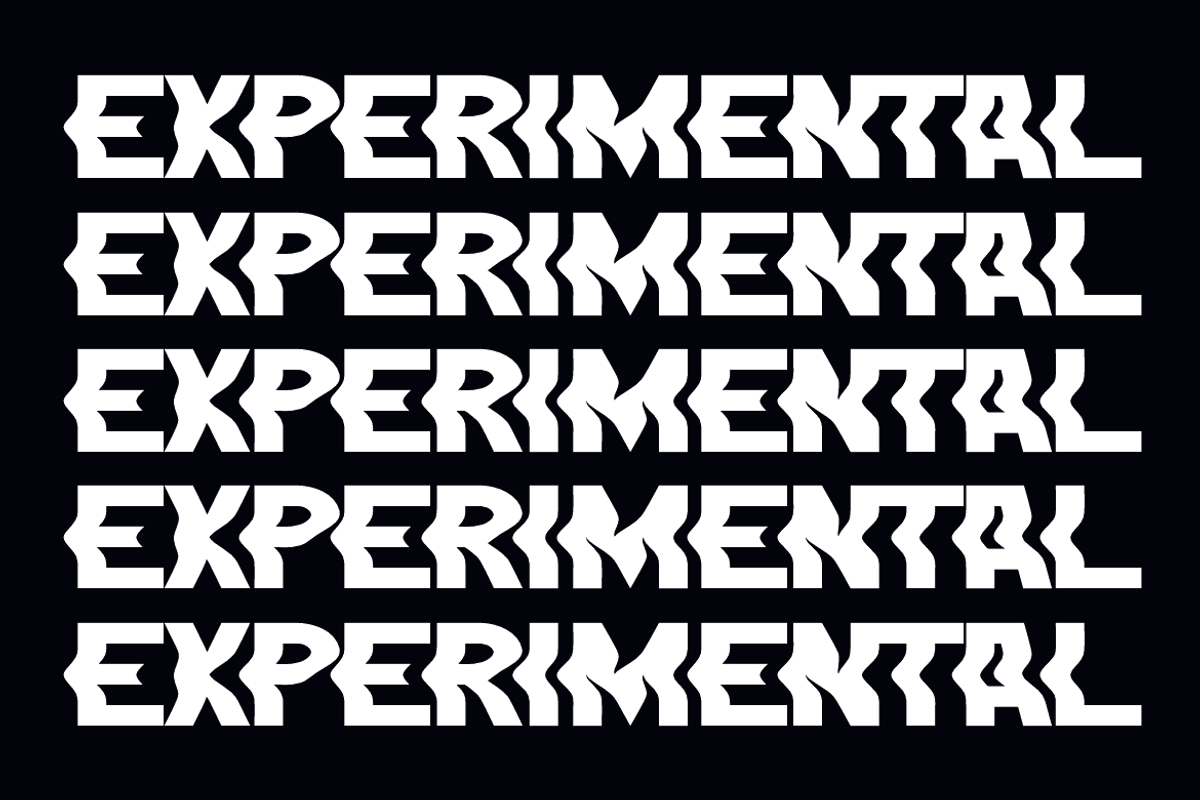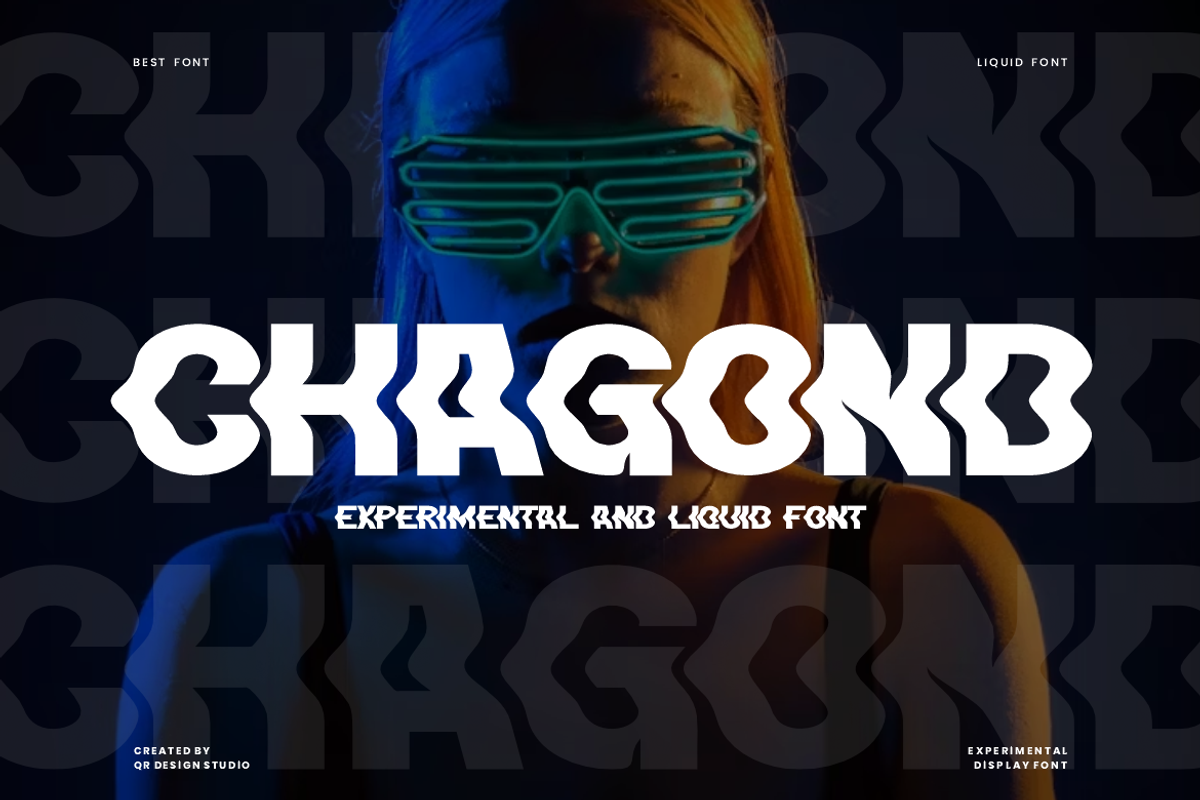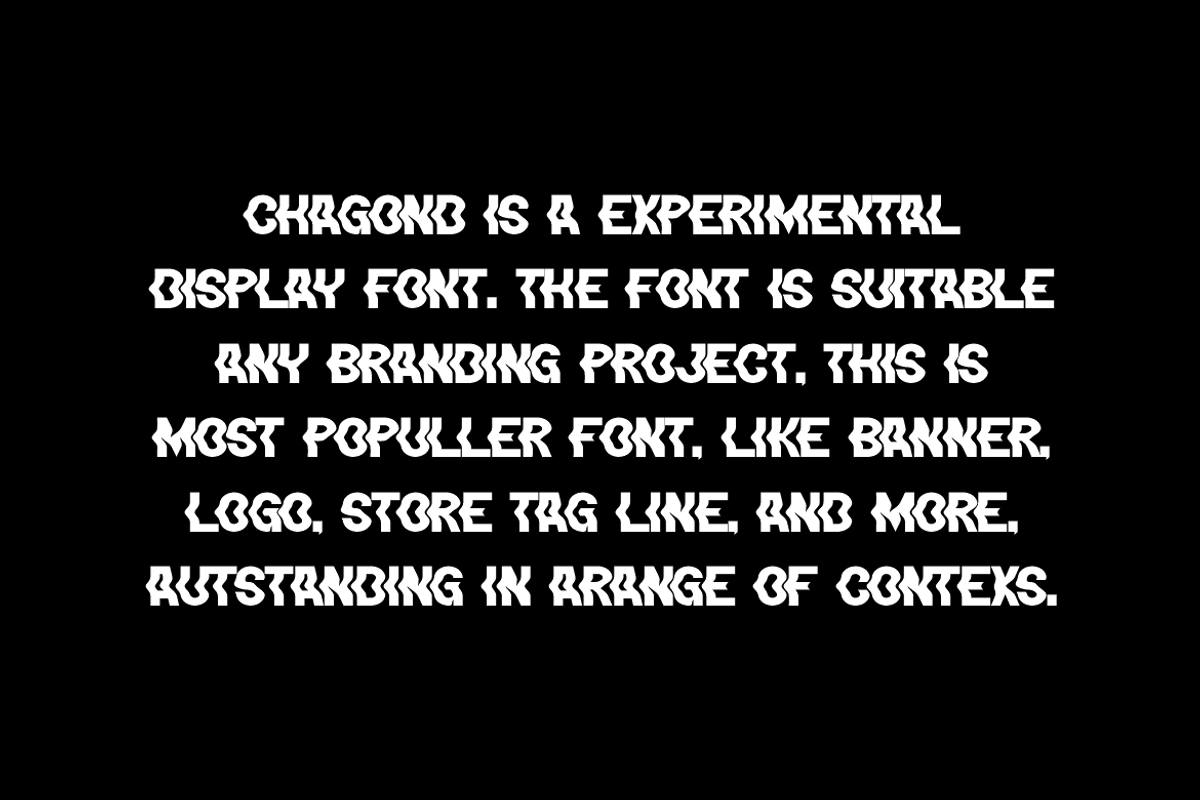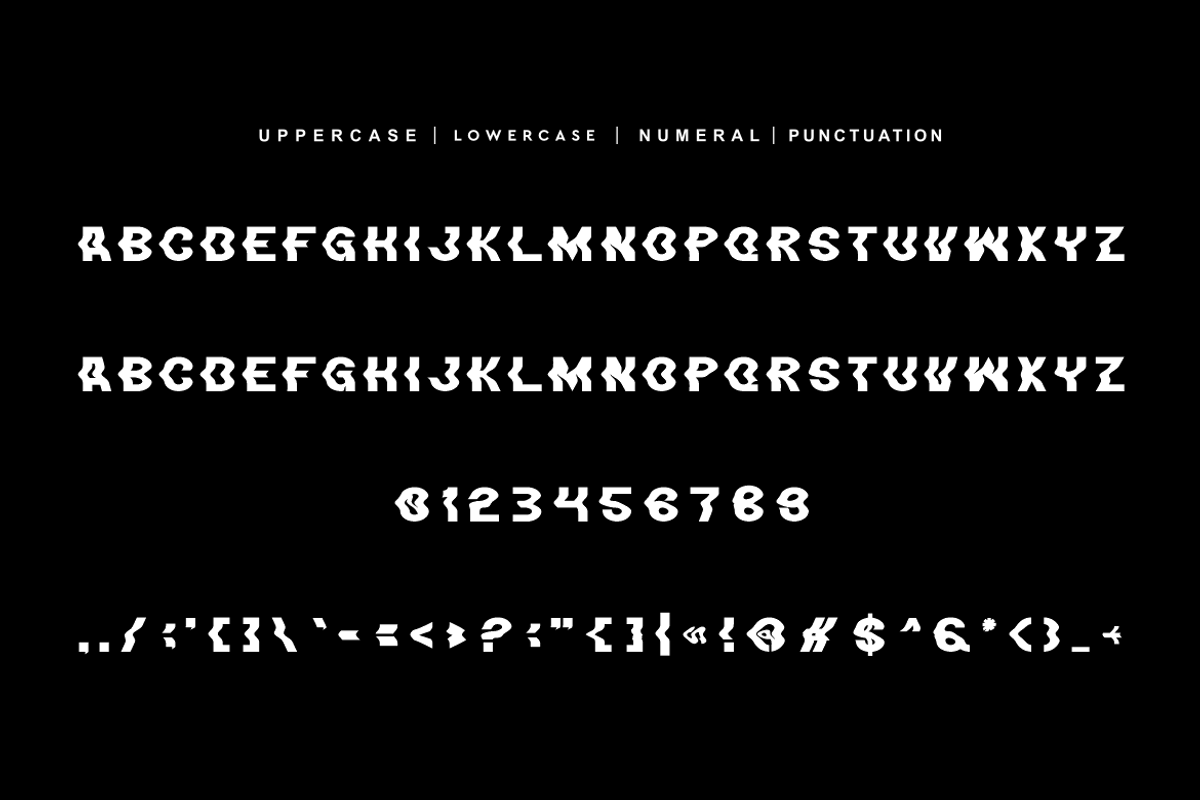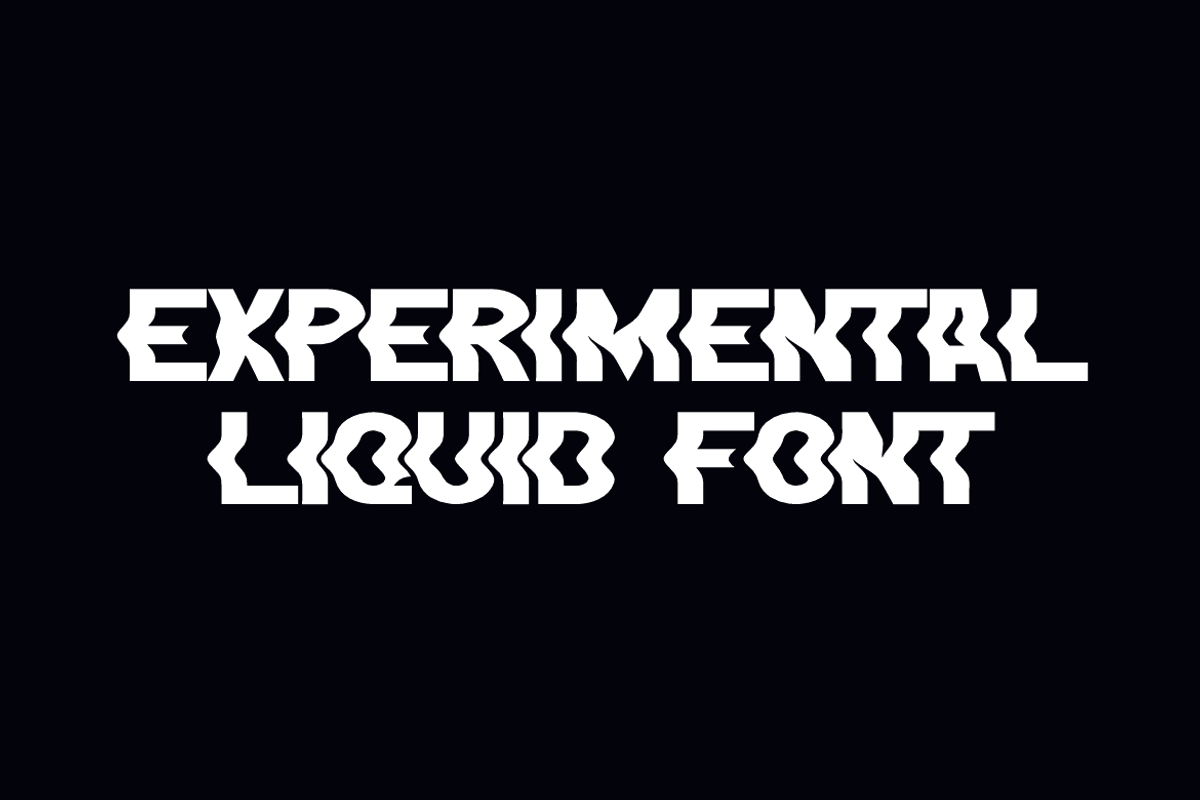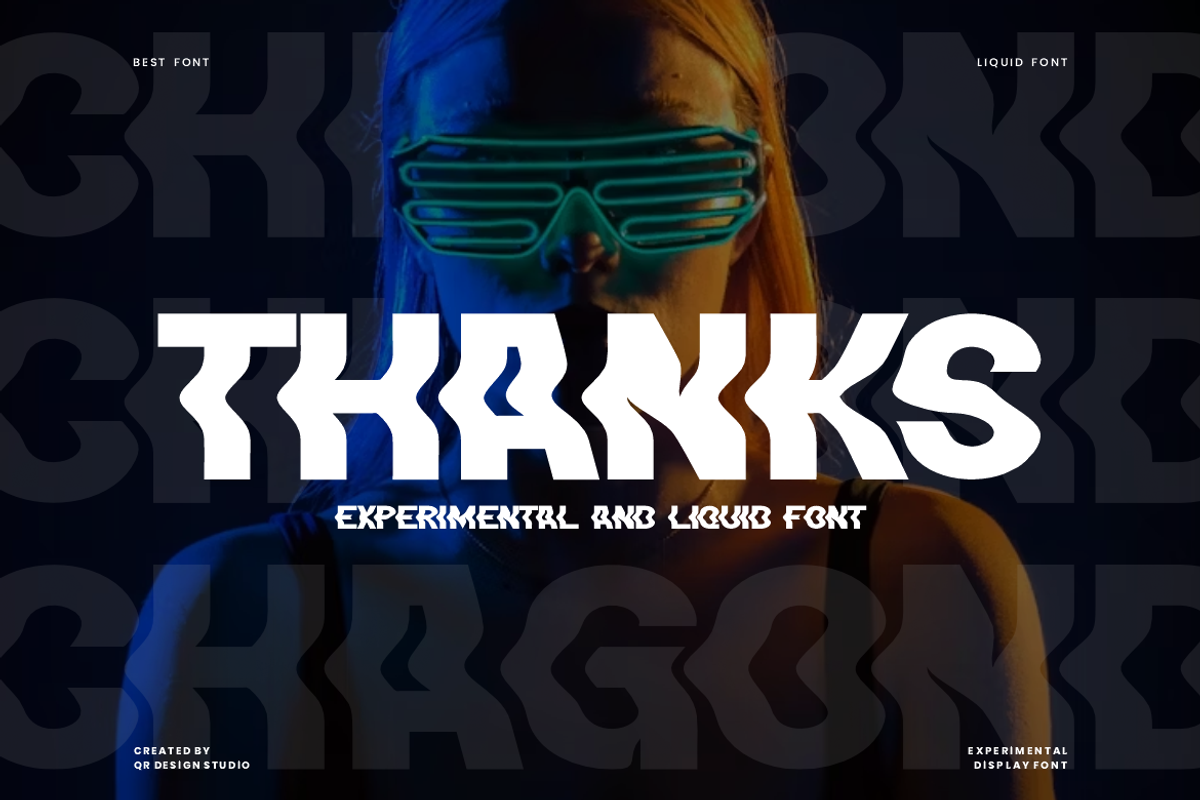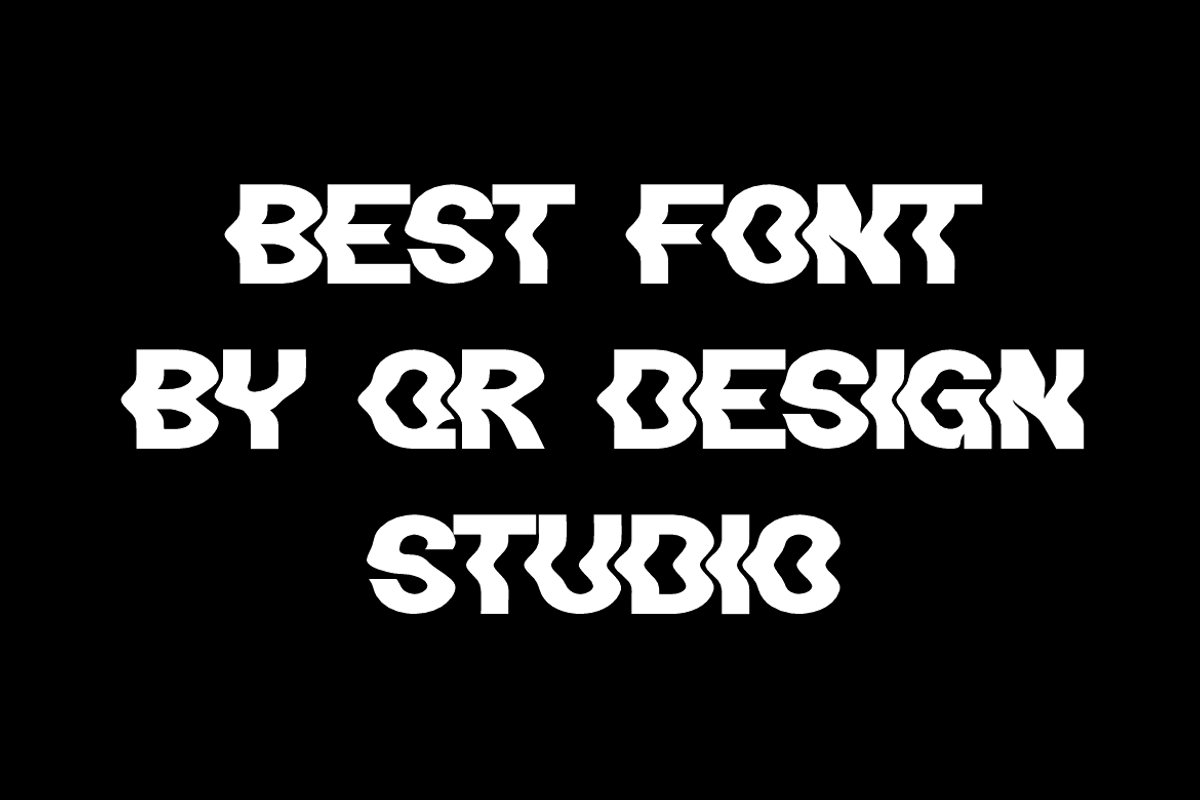
Chagond - Experimental Font
Chagond Font is a bold and authentic display font. The font is suitable for any branding project like poster, logo, sport, and many more. Outstanding in a wide range of contexts.